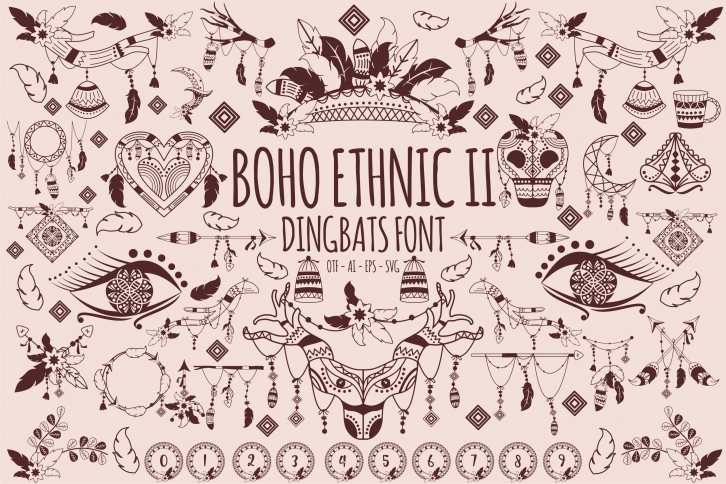
Boho Ethnic II is a cool, hippie and relaxed dingbats font. This original look will appeal to a wide range of crafty ideas, from letterheads and titles, to stationery.